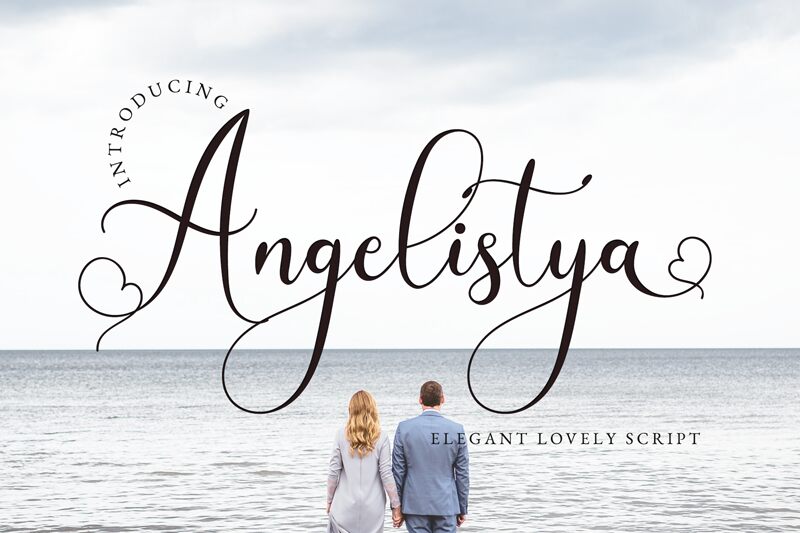
Angelistya
Angelistya font by Airotype Studio is a light valentine script with a graceful style that presents an elegance in each word. Its decorative and flowing letters can easily be described as sophisticated, which makes this free font the ideal choice for romantic projects whether it’s love stories or collections for Valentine’s Day.
The handwritten look of Angelistya adds that natural touch needed for branding designs, greeting cards, letterheads and invitations. It will also allow you to create elegant typography for posters, packaging items, labels and signs, websites headers and lovely headlines.